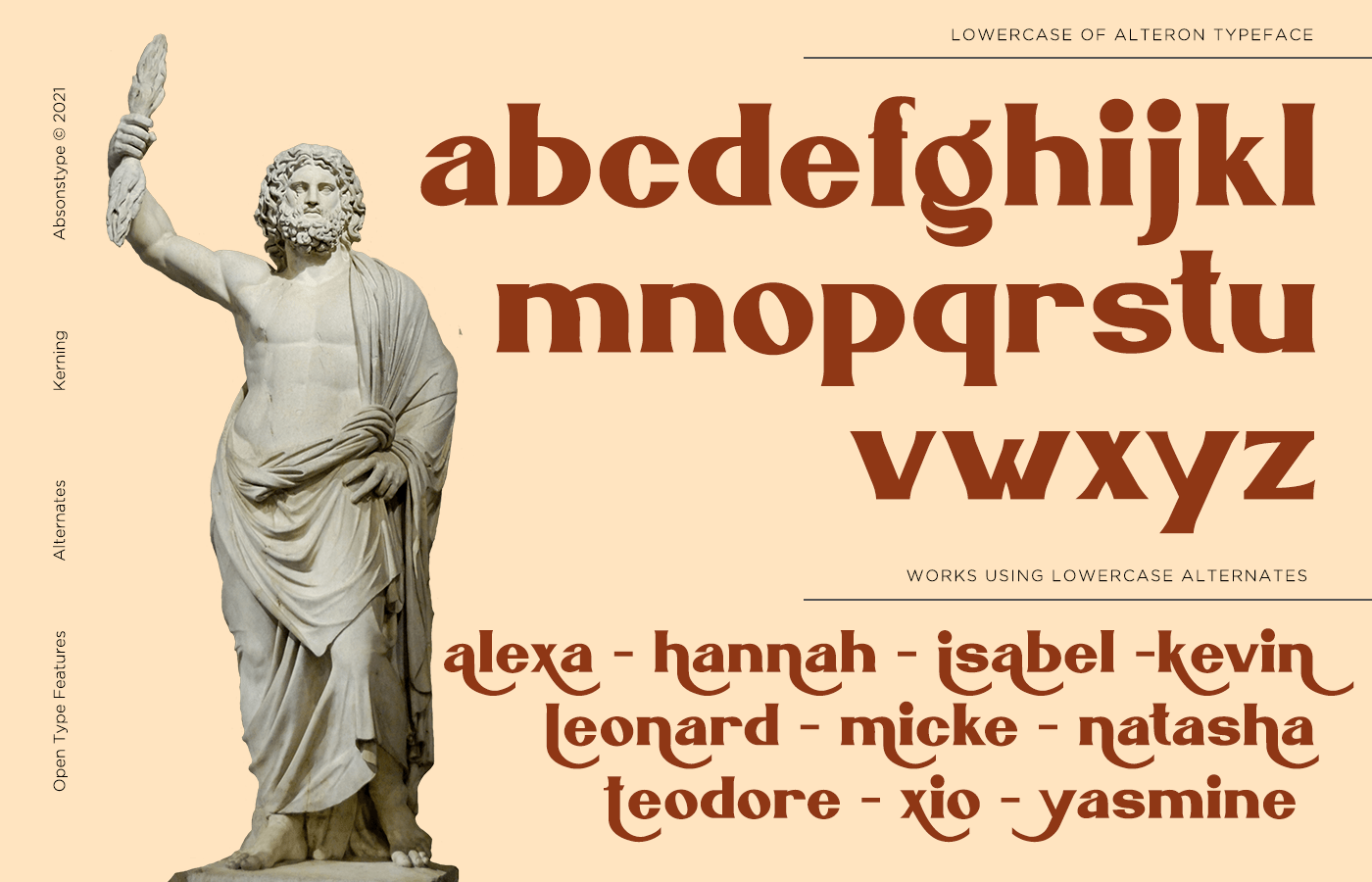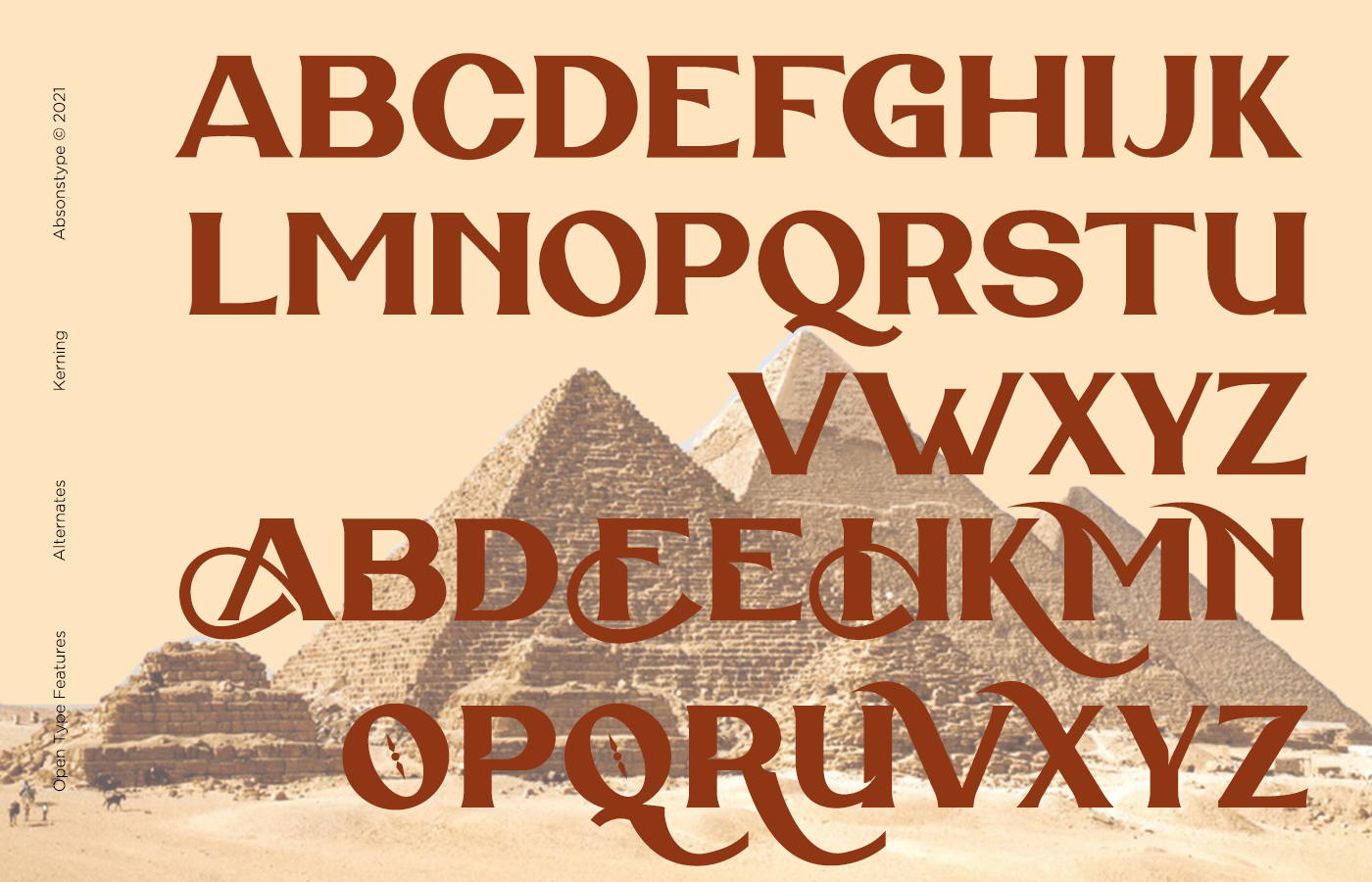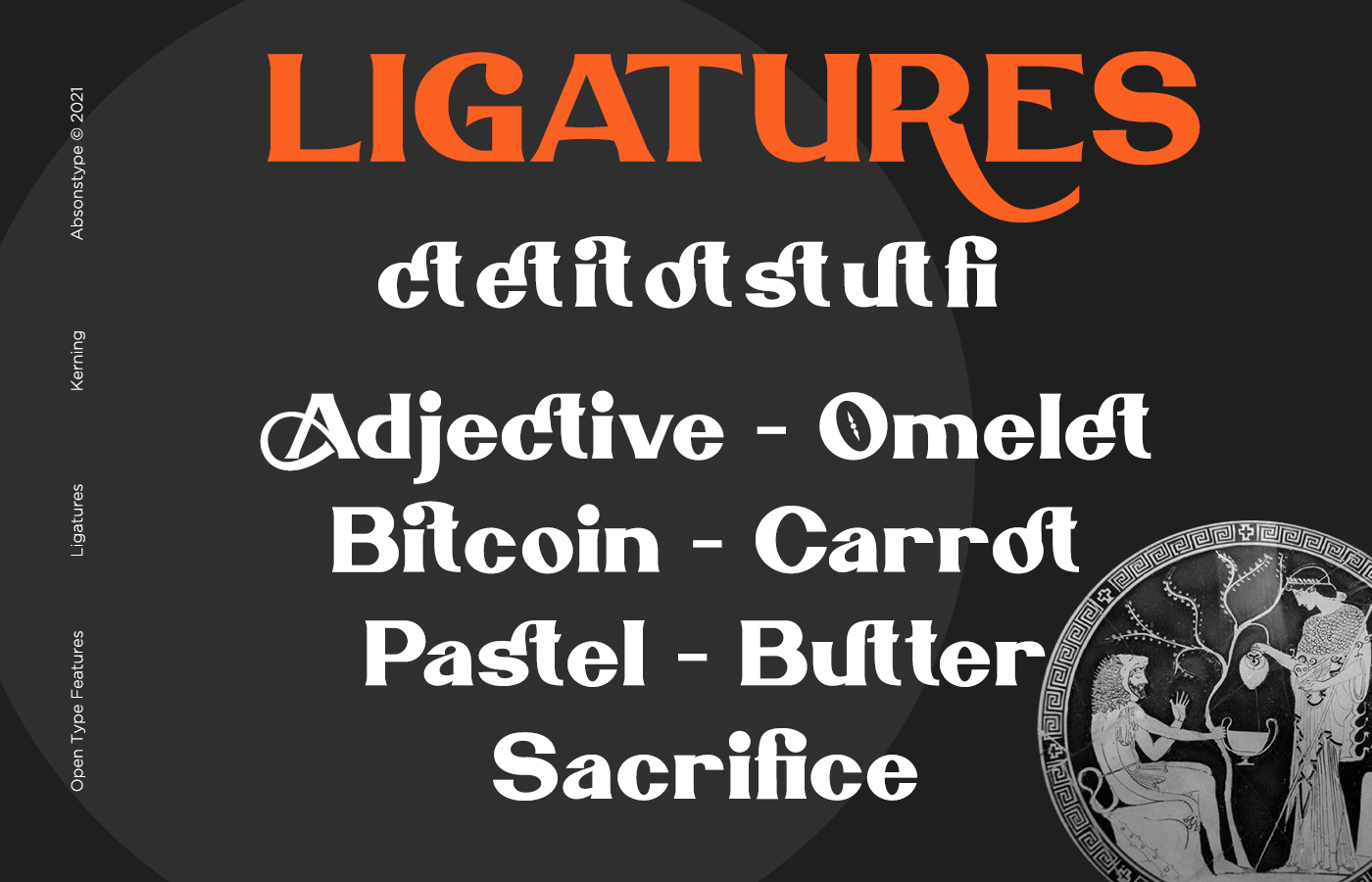
ALTERON Font
ALTERON Display Font
This is the classic display serif style with uppercase and lowercase look feel nice balanced. Provide alternates and ligatures font in variant style make the design letter looks nice. Honestly it works perfectly for headlines, logos, posters, packaging, T-shirts and much more..